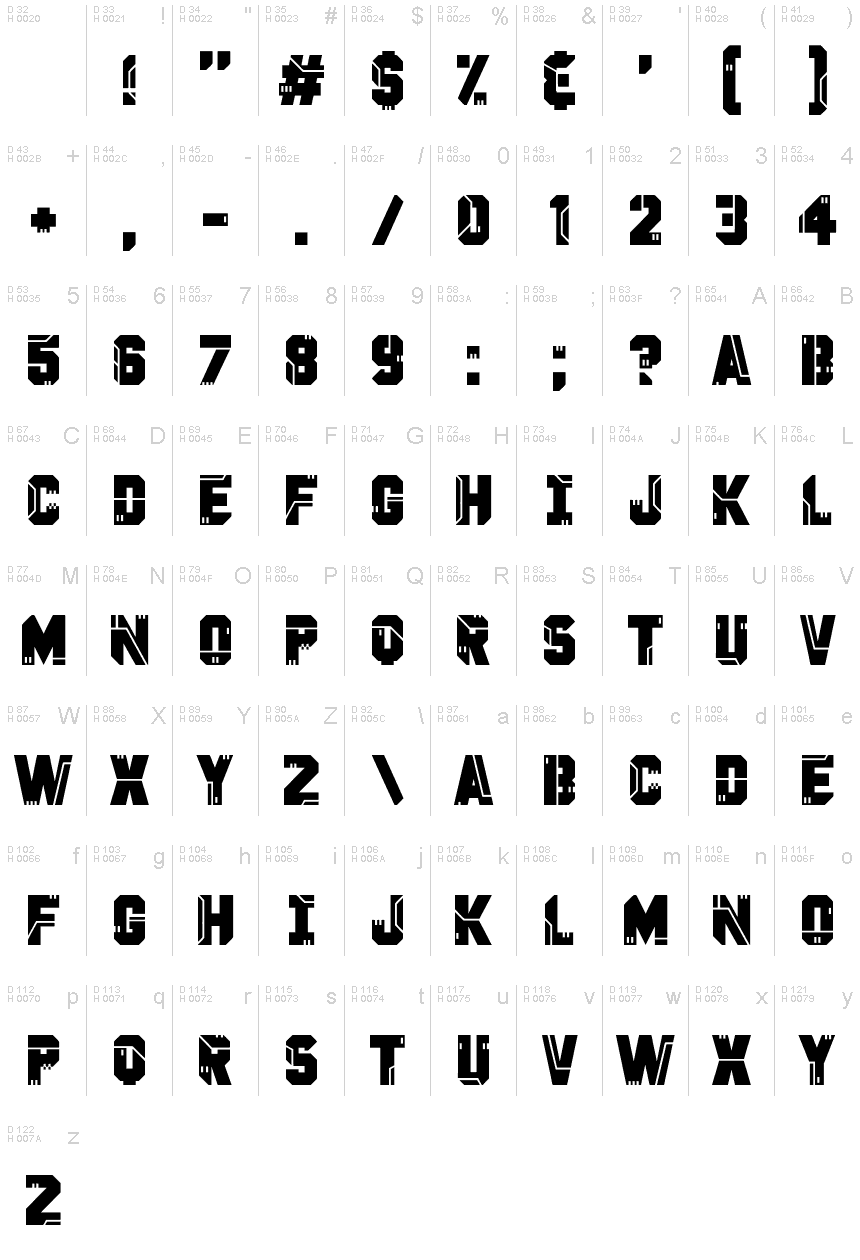
Cyborg Punk
Cyborg Punk, created by imagex, is a captivating display font that embodies the essence of a futuristic aesthetic. Its bold weight and unique design make it ideal for projects seeking a bold and daring look.
With its sharp angles and sleek curves, Cyborg Punk adds an edgy touch to logos, game titles, album covers, and sci-fi movie posters. This font effortlessly captures the essence of a cyberpunk world, making it perfect for any project that aims to immerse its audience in a dystopian future.